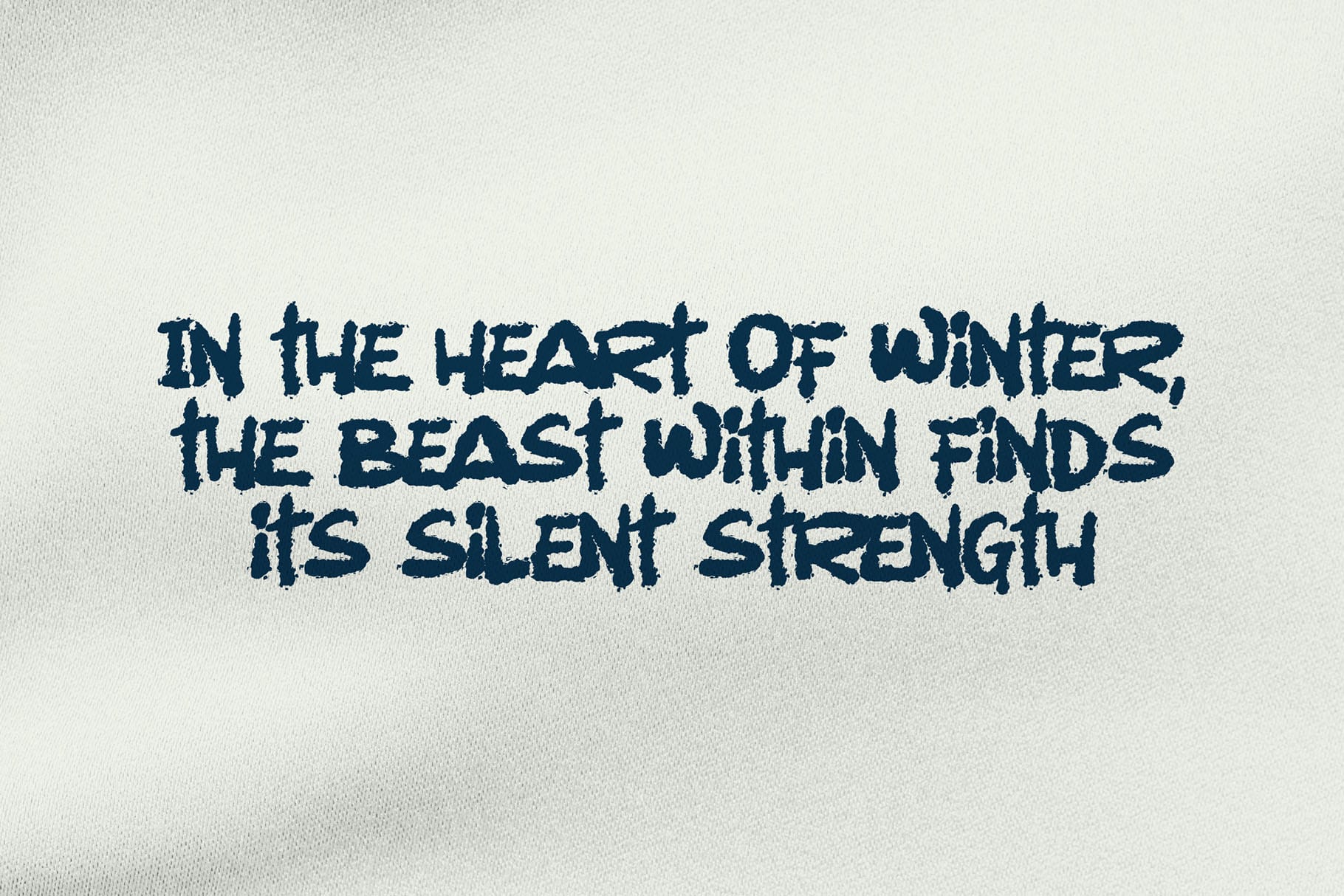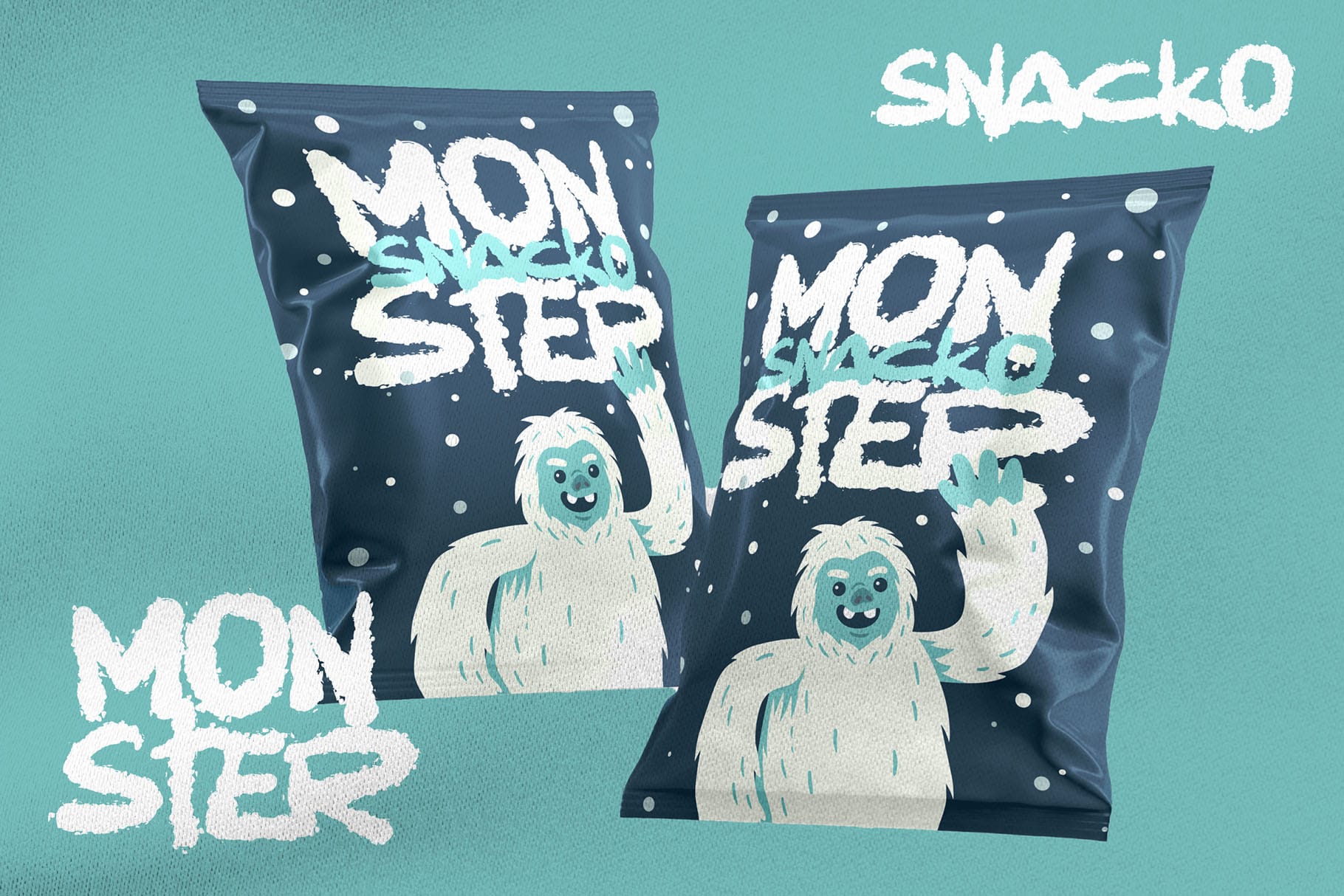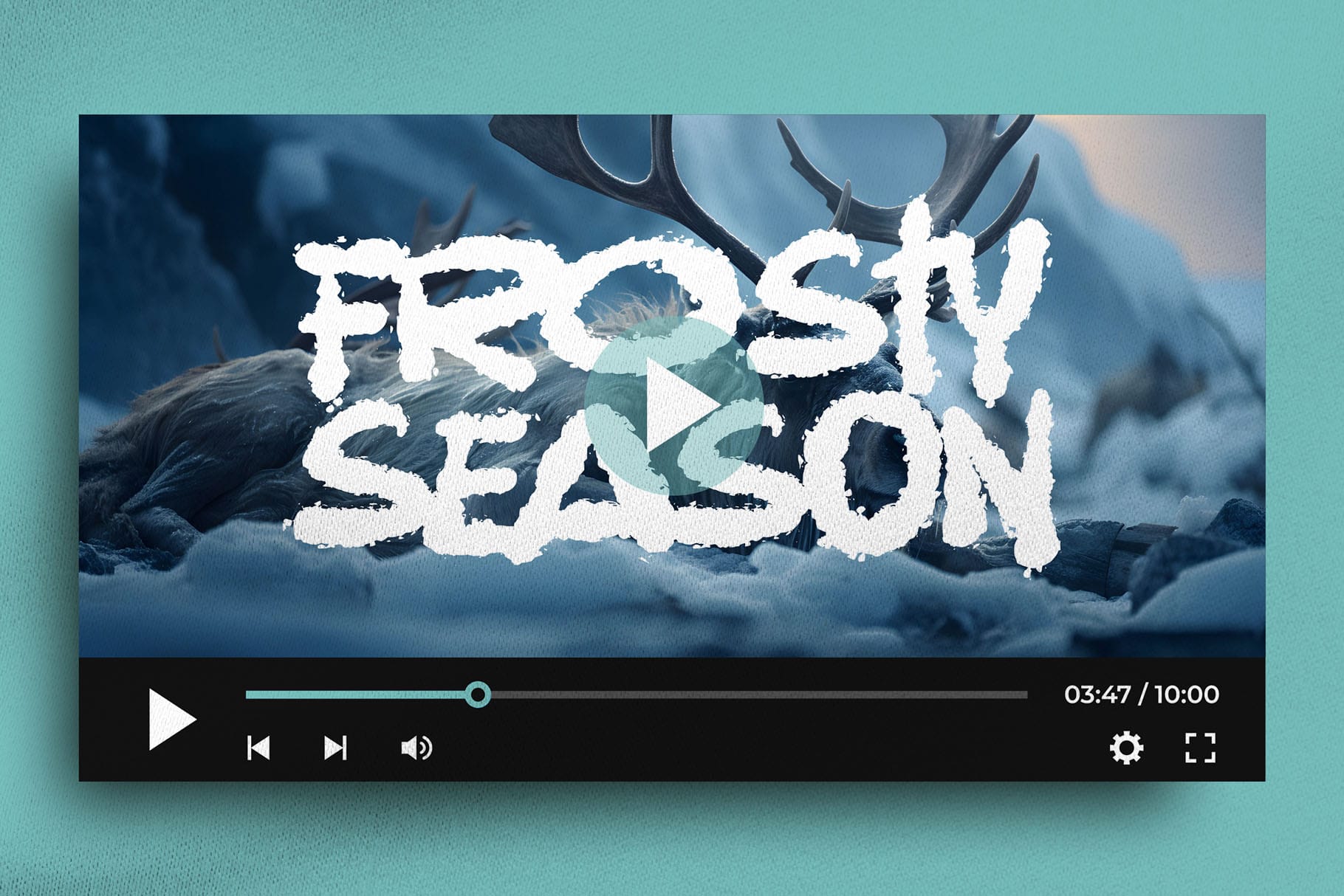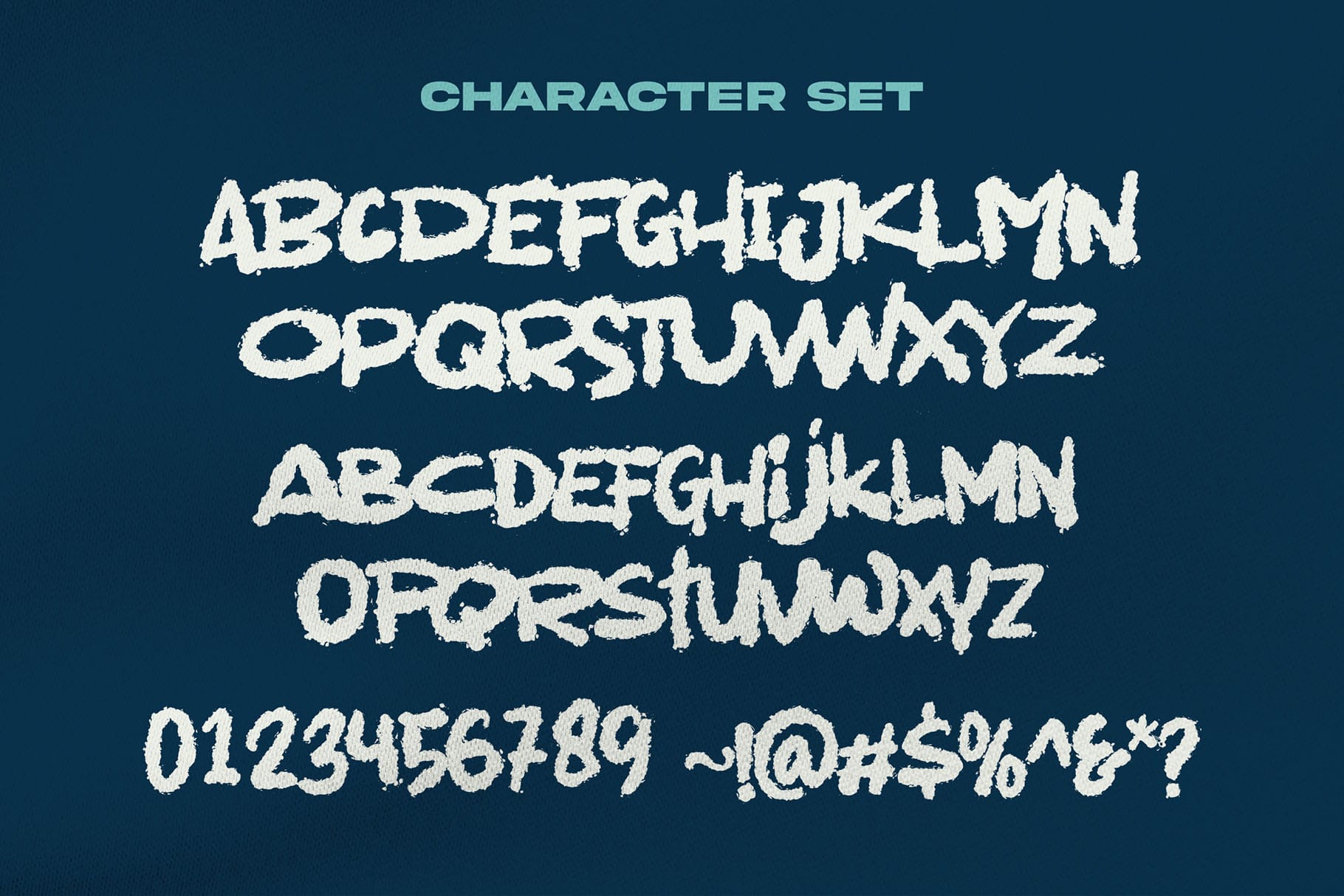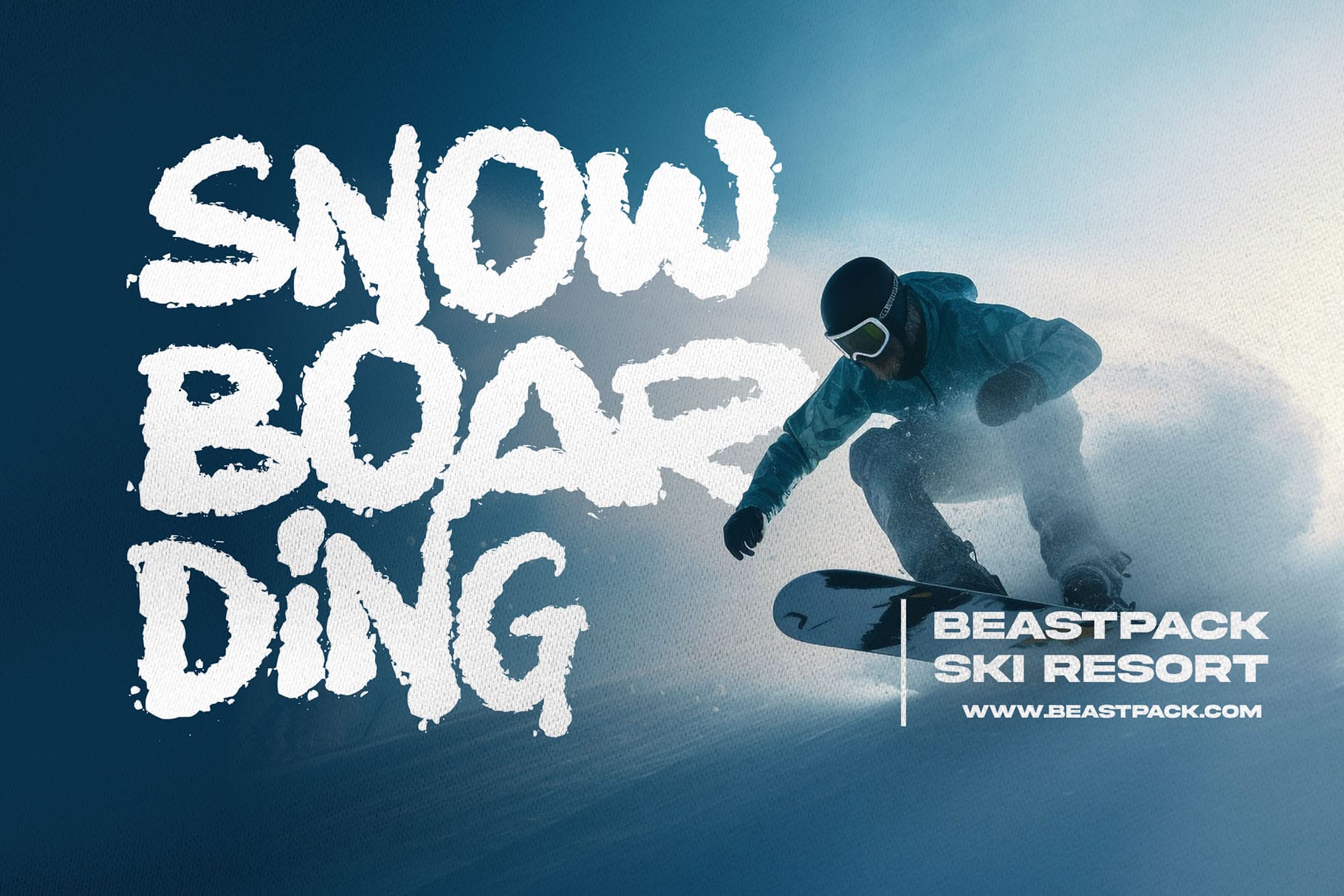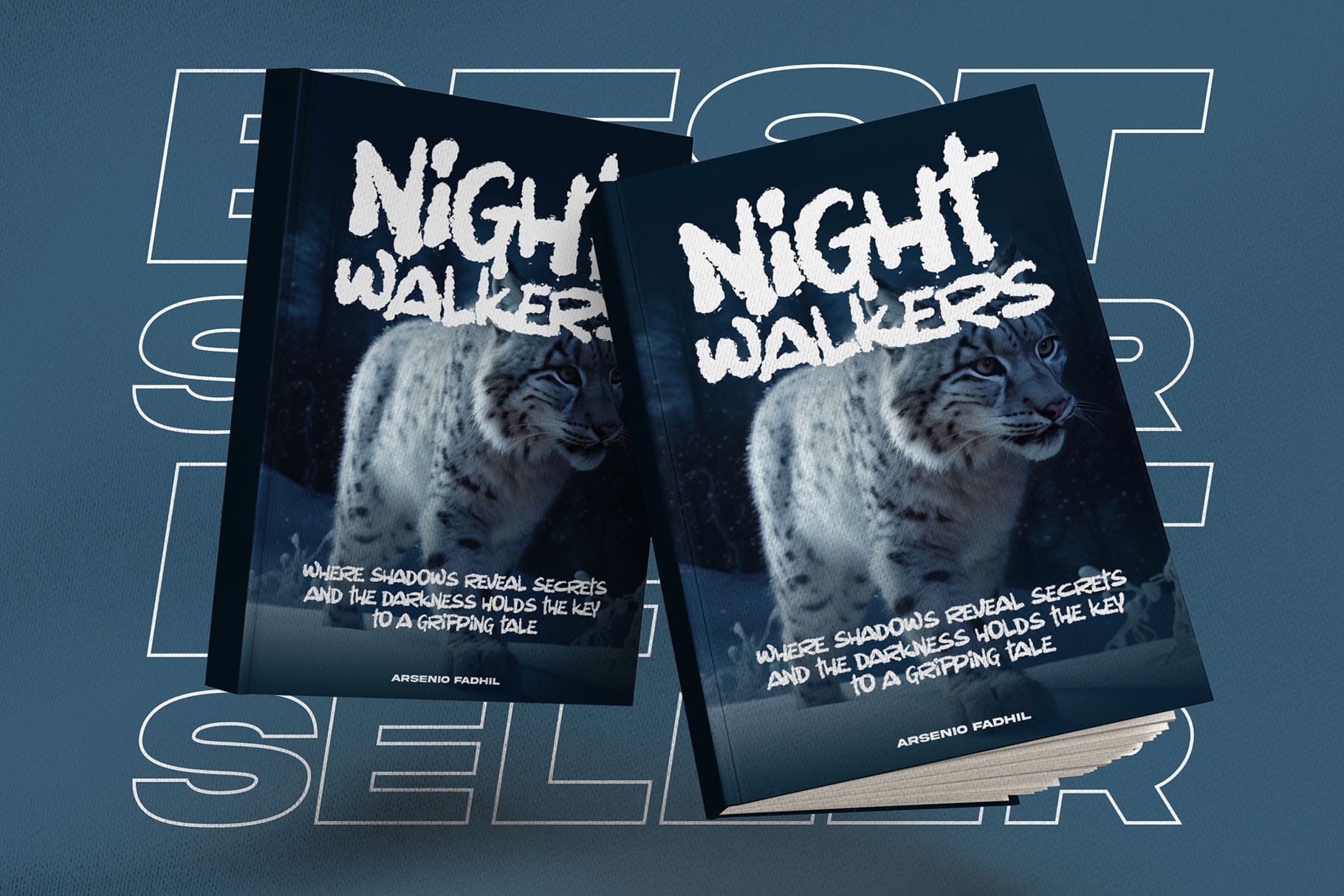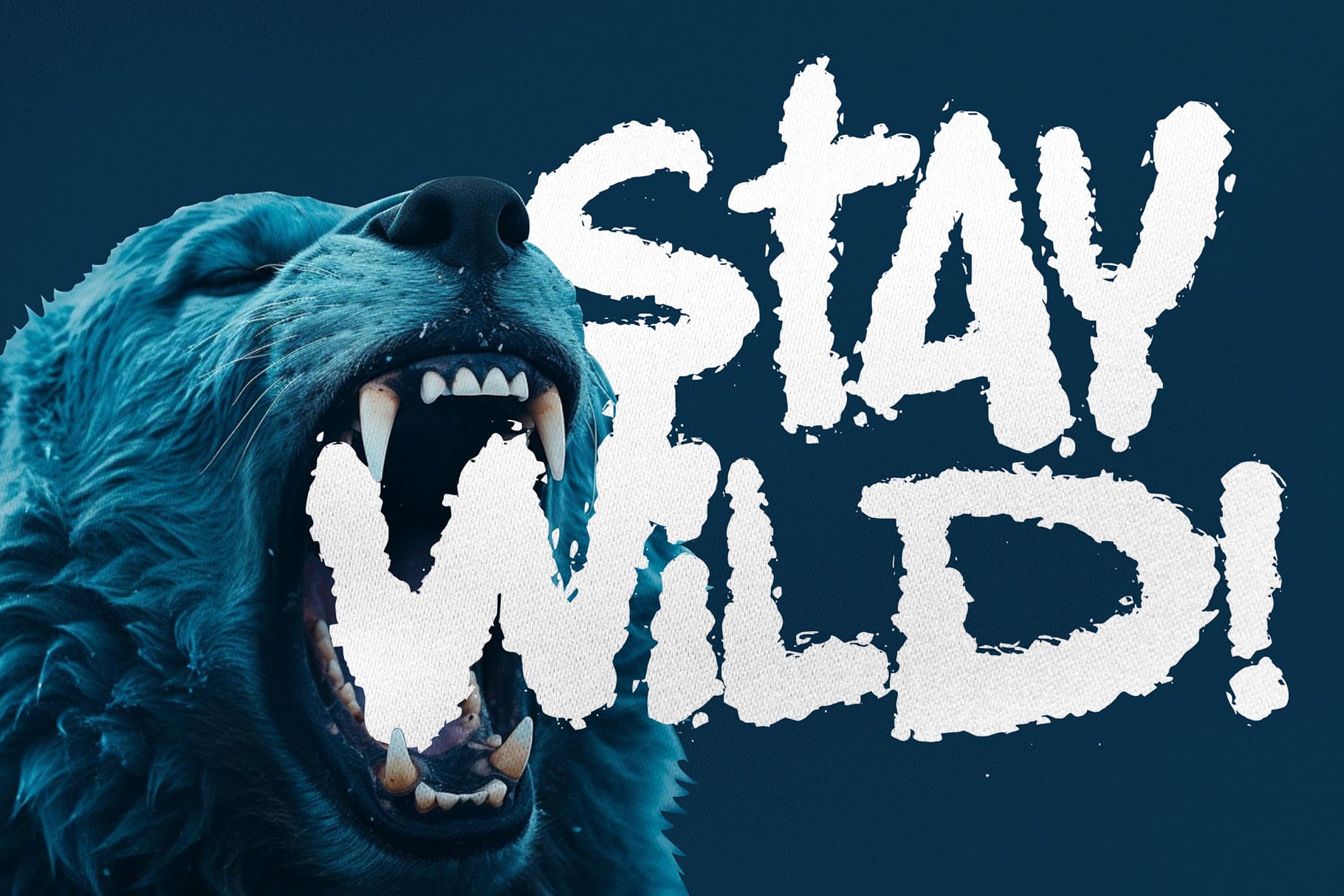
Winter Beast Strong Brush Font for Bold Creative Work
Winter Beast Strong Brush Font is made for designs that need attitude, movement, and a confident handwritten edge. With its strong brush personality, this font brings a raw and expressive look to visual projects that need to feel bold from the first glance.
It is a practical choice for designers, brand owners, apparel creators, packaging designers, crafters, and digital product sellers who want typography with a strong visual voice. Winter Beast is especially useful when your design needs to look energetic, handcrafted, and direct without feeling too polished or overly decorative.
Use it when you want headlines, logos, posters, and merchandise graphics to carry more character. The brush style gives the font a natural handmade impression, while its strong presence helps it stand out in busy layouts, promotional graphics, and bold brand visuals.
Winter Beast has a strong brush font style with expressive strokes and a confident display feel. Its visual personality feels bold, energetic, and slightly untamed, making it suitable for projects that need a stronger emotional punch.
The font works well for designs that want to communicate action, confidence, adventure, street-inspired creativity, or handcrafted authenticity. It can bring a rugged edge to logo concepts, a dramatic rhythm to poster headlines, and a custom lettering feel to apparel designs.
Because Winter Beast includes stylistic alternate support, designers have more flexibility when shaping expressive typography. This makes it helpful for creating display text that feels less repetitive and more naturally composed.
Best Use Cases
Winter Beast Strong Brush Font is ideal for bold display design. It can be used for logos, branding concepts, posters, product packaging, apparel graphics, merchandise, quote designs, social media artwork, stickers, labels, YouTube thumbnails, and digital product previews.
For apparel designers, Winter Beast can help create strong t-shirt graphics, hoodie designs, sports-inspired artwork, and statement lettering. For brand designers, it can add energy to visual identities that need to feel bold, handmade, and memorable.
For content creators and digital sellers, this font can be used to create powerful quote graphics, promotional banners, printable wall art, and social media templates. Its strong brush character gives short phrases more personality and makes display words feel more intentional.
Key Features of Winter Beast Strong Brush Font
• Standards Characters
• Punctuation
• Stylistic Alternate
• PUA Encoded open
• Support Multilingual
These features make Winter Beast useful for a wide range of design workflows. The included punctuation helps with practical text settings, while multilingual support allows broader usage across different language-based projects. PUA Encoded access also helps users work with available special characters in supported applications.
Designers love Winter Beast because it gives projects an instant sense of strength. It does not feel quiet or neutral. It feels expressive, direct, and ready for bold design work.
For branding, the font can help create a logo or headline that feels more personal than a standard display typeface. For packaging, it can bring energy to labels, product names, and promotional layouts. For merchandise, it gives apparel graphics the kind of strong lettering style that feels made for statement pieces.
Winter Beast is also practical for fast creative production. It supports Mac and PC workflows and is designed for simple installation in Adobe Illustrator, Corel Draw, Photoshop, or Procreate. That makes it easy to bring into different design environments, from professional branding software to mobile lettering workflows.
Its strong brush style works best when used with intention. Use it for short titles, bold phrases, main logo text, and featured words. Pair it with a clean supporting font to keep your layout balanced and readable.
For a strong brush font like Winter Beast, pairing it with a cleaner or contrasting Figuree font can help create a more complete visual system. You can pair it with Bolde for a powerful sans serif contrast, Ignazio for a modern supporting type style, or Mouth Beast when you want to explore another strong brush direction from the Figuree catalogue.
Use Winter Beast as the attention-grabbing display font, then use a cleaner paired font for subtitles, product information, descriptions, or secondary text. This keeps your composition bold without sacrificing readability.